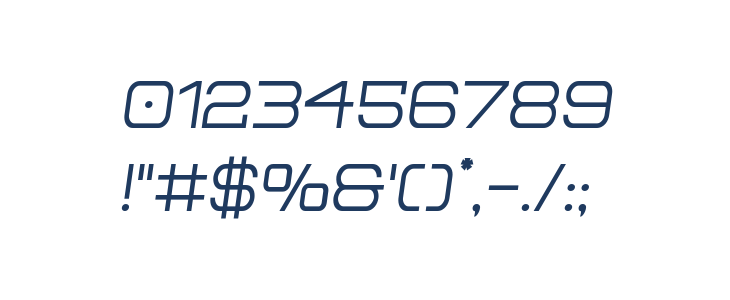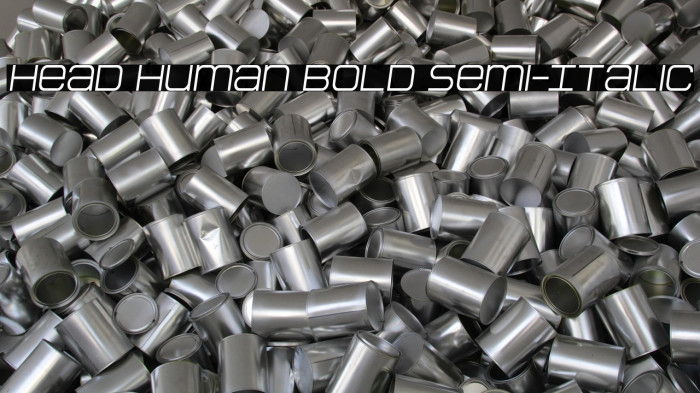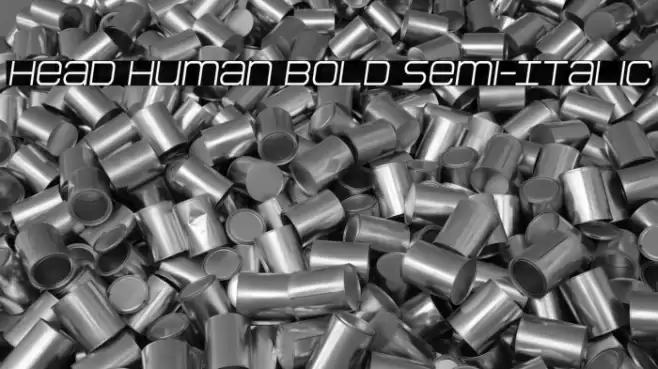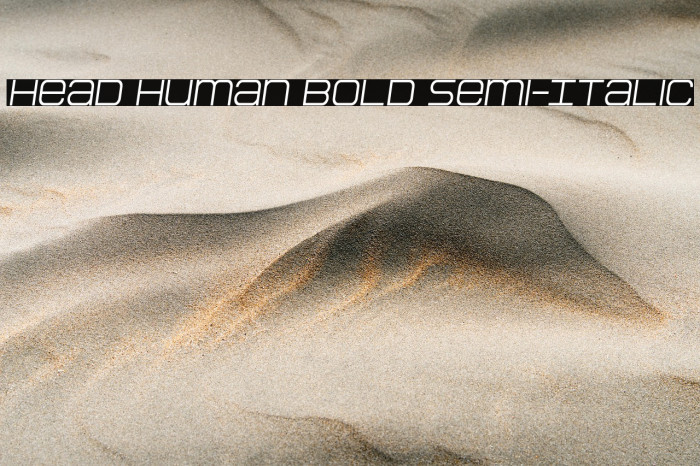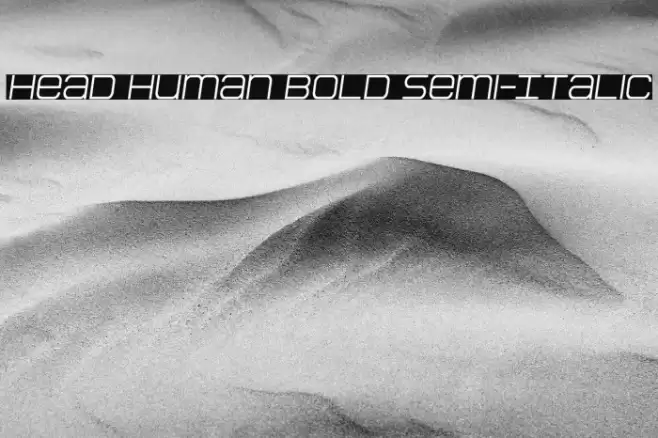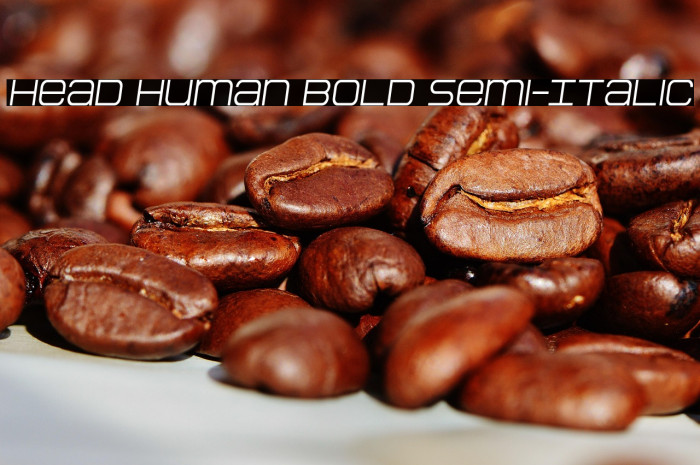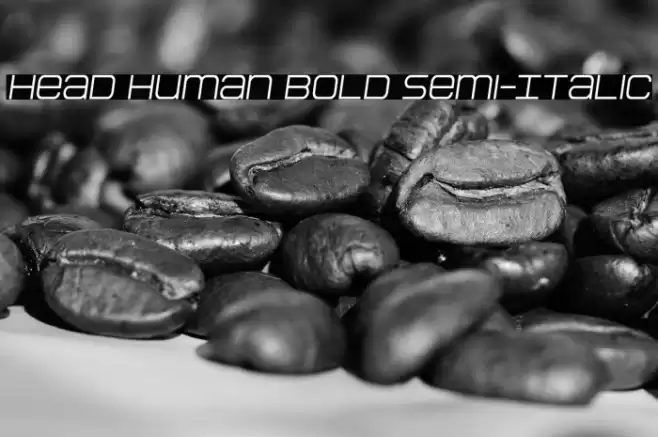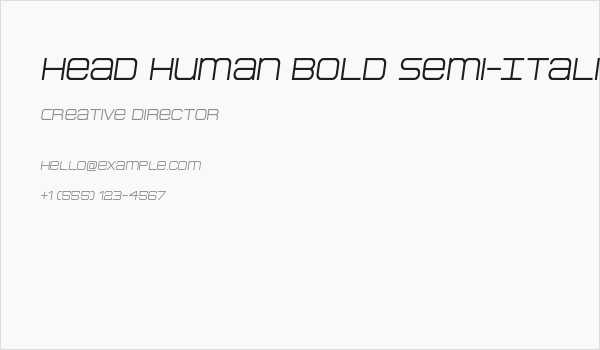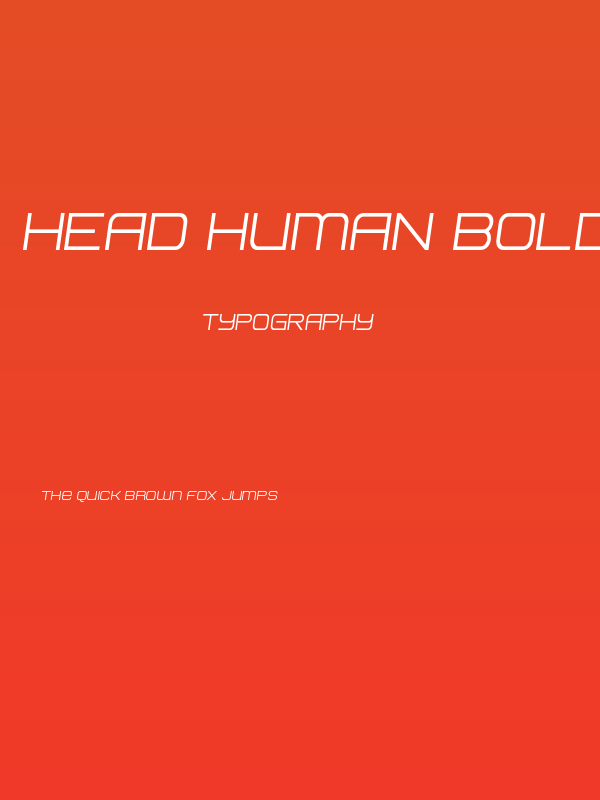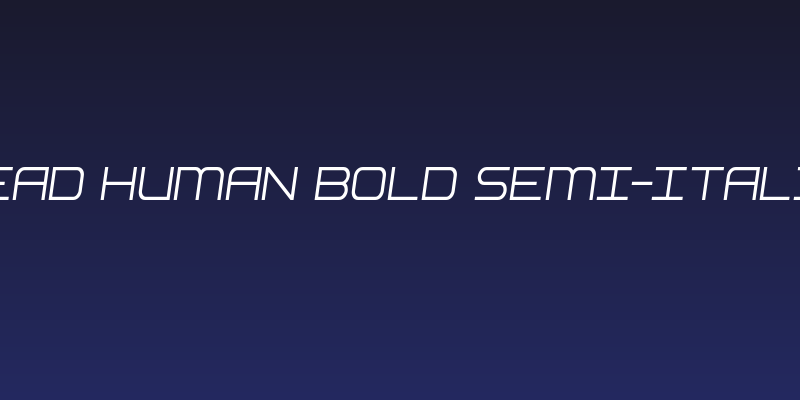
Head Human Bold Semi-Italic Font
Head Human Bold Semi-Italic Description
This font features a modern and sleek design with a semi-italic slant, giving it a dynamic and forward-moving appearance. The characters are bold, with a consistent stroke width that provides a strong presence on the page. The design is geometric, with rounded edges that soften the overall look, making it approachable yet professional. The uppercase and lowercase letters maintain a uniform style, ensuring readability and cohesion. The numerals and special characters are designed to match the overall aesthetic, providing a complete and versatile typeface suitable for various applications.
| Proposed Projects | Ideal for technology branding, modern advertising, and innovative product packaging. |